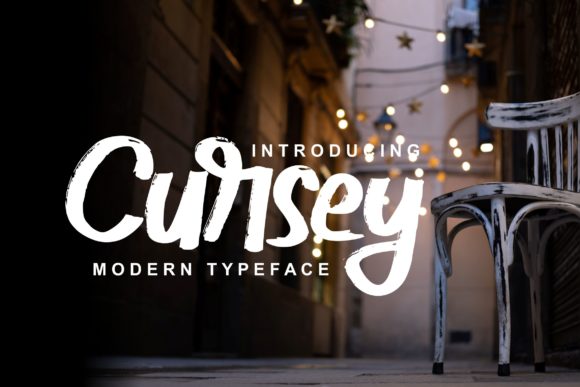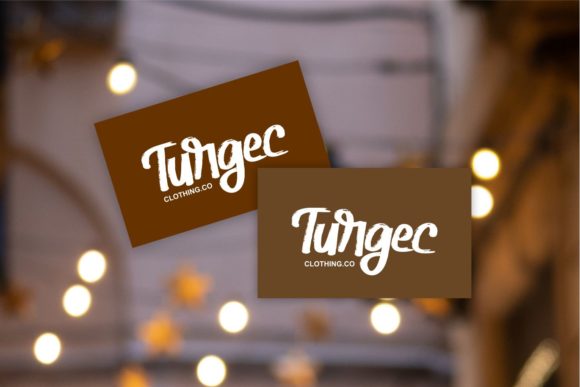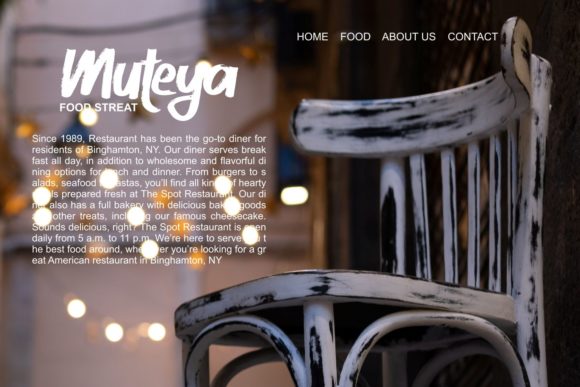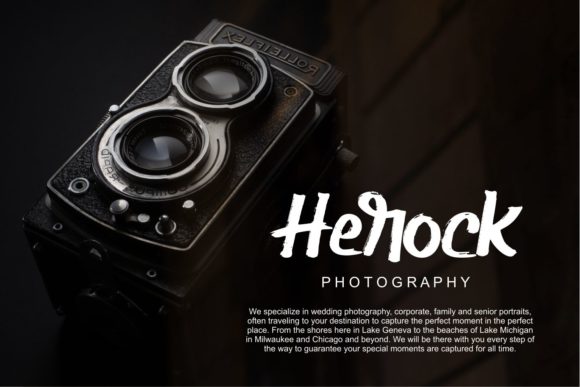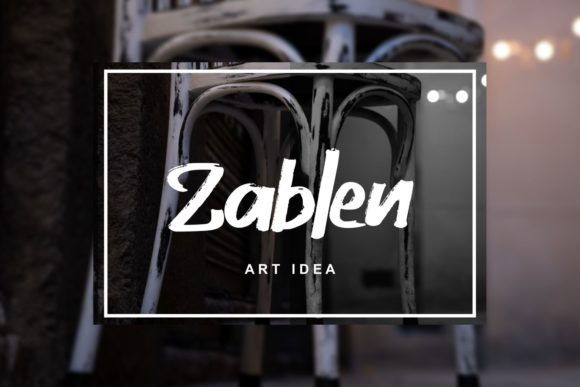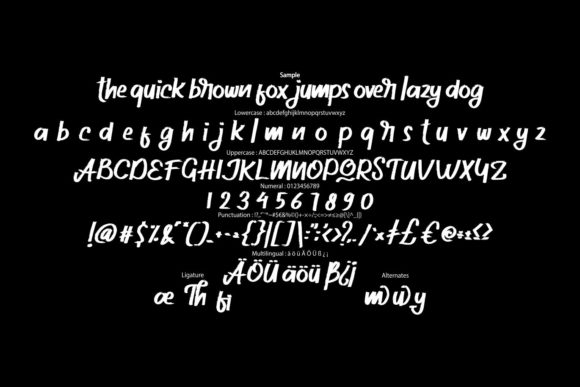
Cursey Font
Cursey Font Poster 1
About Cursey Font
Cursey is a modern handwritten font. This stunning font is a stylish homage to classic calligraphy. Fall in love with its authentic feel and use it to create gorgeous wedding invitations, beautiful stationary art, eye-catching social media posts, and cute greeting cards.